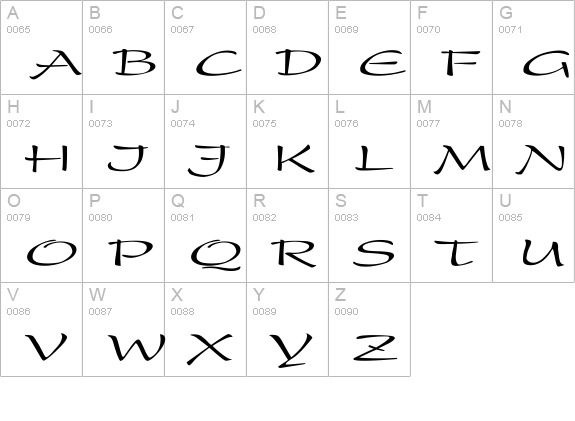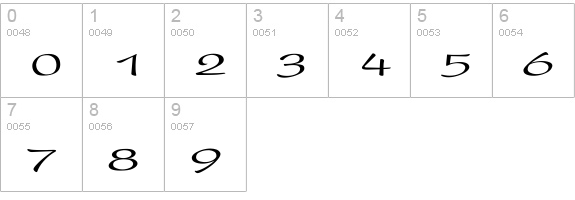
Present Ex Font Details
Present Ex font is a modern and stylish typeface that exudes elegance and sophistication. With its clean lines and contemporary design, this font is perfect for a wide range of projects, from branding to editorial design. The versatility of Present Ex font makes it a go-to choice for designers looking to add a touch of sophistication to their work. What's even better is that Present Ex font is available for free download at FontsMarket.com. This means that you can easily access this stunning font without any cost, making it an ideal choice for both personal and commercial projects. Don't miss out on the opportunity to elevate your designs with the timeless appeal of Present Ex font. Download it today and start creating beautiful typography with ease.